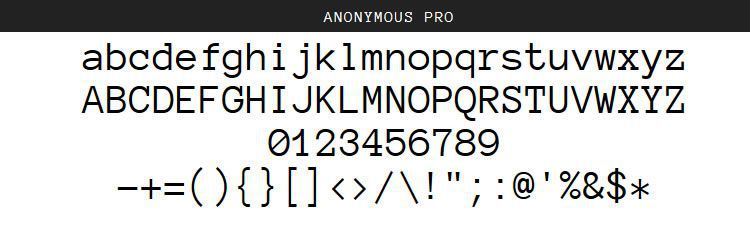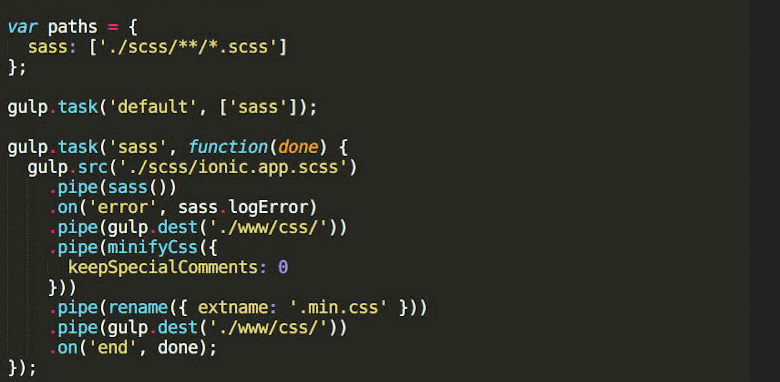
It supports the font ligature feature which can combine two. In this article, i'm going to share the best fonts you can use specifically for coding.
Fira code i've used monaco for 10+ years until i finally met fira code. It supports latin, greek, and cyrillic scripts and contains six weights in upright and italic. Crisp, clear, and just about perfect, monoid is a programmer’s dream. In this article, i share the top 6 best fonts to use for programming in 2022!
Monolisa is a font that’s designed to reduce fatigue and improve your productivity. Most apparent some of the details are in print, for example, the subtle curves in lowercase “t”, “v”, “w”, and “y”. This is another property that makes it a good baseline to compare other fonts to. The best coding fonts (2022) by ralf herrmann (edited) | views:
The key when writing coding in a word document comes from. Crisp, clear, and just about perfect, monoid is a programmer’s dream. Monalisa is a very popular font among developers. Monolisa is a font that’s designed to reduce fatigue and improve your productivity. Best monospace code fonts for developers? DigitalOcean.
It’s unique enough compared with standard fonts like times new roman and arial that it will work wonders for coding. · aug 1, 2021 ·. Nonserifed fonts should only be used for headlines. This font has been designed specifically to reduce fatigue and help to improve developers' productivity. Best Coding Fonts ActiveState.
It’s very easy to get started and combine with vs code. Hunt specifically for coding environments. Its styles are regular, bold, oblique and retina versions, it supports latin, greek, cyrillic, ligature, alternate and powerline glyphs. Inconsolata, also free, comes with ligatures for a great coding experience, it. The 10 Best Programming Fonts for Developers.
The 8 best monospace fonts for coding. · aug 1, 2021 ·. The 100 best free fonts for 2022; This font has been designed specifically to reduce fatigue and help to improve developers' productivity. The Best Coding Fonts (2021) ⌨️ Typography/Font Lists Typography.Guru.
Fira code is one popular monospaced type font among developers. Its styles are regular, bold, oblique and retina versions, it supports latin, greek, cyrillic, ligature, alternate and powerline glyphs. Inconsolata, also free, comes with ligatures for a great coding experience, it. If the name wasn’t enough of an indication, this particular font family was designed with programmers in mind, so it being one of the best programming fonts around should hardly come as a surprise to anyone. The 10 best fonts for programming A guide.
Utilizing a textual style that feels great to your eyes can have an enormous effect and work on your usefulness. Nikita prokopov puts a lot of effort into the ligatures, which transforms. Check out this selection of the best monospace fonts, which can make your text editor or terminal emulator look great. Containing a blend of free and premium fonts, this list was curated from fonts with great legibility and beautiful in nature. Programming Fonts — A List. 2018’s highest quality fonts for coding.
Mostly free fonts to be used for programming. It looks really good, and it comes from the original font that typewriters used to use. Developers spend considerable time writing code, and choosing a legible font designed to reduce eye strain when coding is of utmost importance. It supports the font ligature feature which can combine two. The 10 best fonts for programming A guide Developer Tech News.
Choosing The Right Font For Coding Can Make It Easier To Read And More Pleasant To Work With.
People will immediately understand it's code. Its styles are regular, bold, oblique and retina versions, it supports latin, greek, cyrillic, ligature, alternate and powerline glyphs. This monospace font was designed by paul d. However, they don't come with the best fonts, and some people don't consider changing their fonts when writing code.